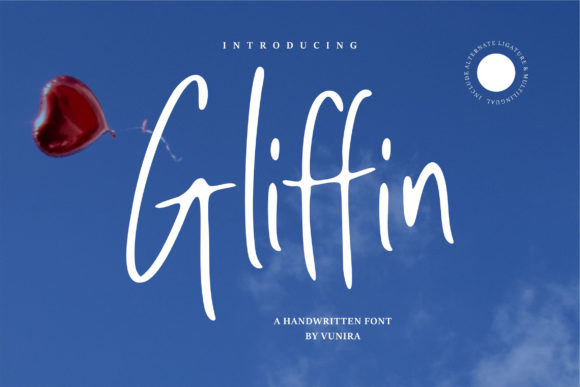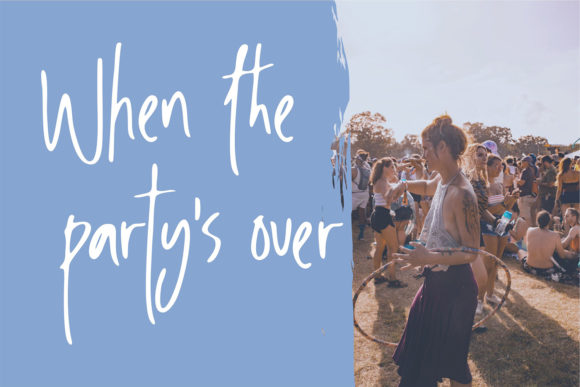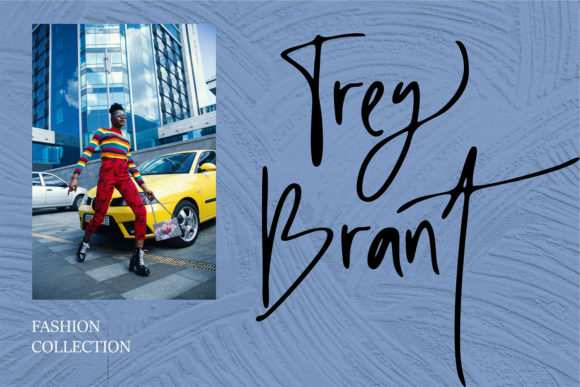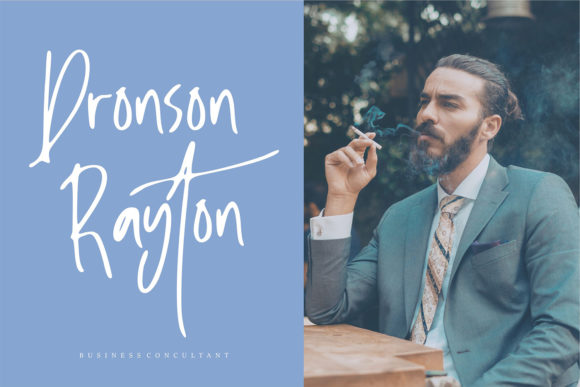
About Gliffin Font
Introducing Gliffin, a fresh and unique script font that exudes a carefree attitude and a playful edge. With its quirky and casual feel, Gliffin is perfect for adding a touch of personality and charm to your designs. Whether you’re working on logos, invitations, wedding designs, social media posts, or any other creative project, Gliffin is here to elevate your work with its distinctive style.
One of the standout features of Gliffin is its wide selection of natural-looking ligatures. These ligatures add a sense of authenticity and fluidity to your typography, mimicking the way letters naturally flow together in handwriting. The ligatures seamlessly connect characters, creating a more organic and handcrafted look. With Gliffin, your text will have that extra touch of charm and character, setting it apart from ordinary script fonts.
Gliffin is highly versatile and adaptable, making it suitable for a wide range of design applications. Its playful and carefree nature brings a sense of fun and spontaneity to your designs, perfect for projects that require a lighthearted and energetic vibe. Whether you’re designing a logo for a creative agency, creating invitations for a whimsical event, or crafting social media posts that stand out from the crowd, Gliffin adds a unique and memorable touch.
When used in logos, Gliffin creates a memorable and distinctive brand identity. Its casual and playful nature can reflect a brand’s personality and values, while its clean and legible letterforms ensure readability and impact. Whether you’re designing a logo for a café, a fashion brand, or a children’s product, Gliffin adds that extra touch of character and style.
Invitations and wedding designs come alive with Gliffin’s carefree attitude. Its flowing strokes and expressive letterforms create an elegant and whimsical look that is perfect for capturing the joy and celebration of special occasions. Whether you’re designing wedding invitations, save-the-date cards, or event signage, Gliffin adds a touch of romance and personality that sets the tone for a memorable event.
Social media posts become more engaging and eye-catching with Gliffin. Its unique and playful style helps your content stand out in crowded feeds, grabbing attention and encouraging interaction. Whether you’re creating Instagram quotes, Facebook posts, or Pinterest graphics, Gliffin adds a touch of creativity and personality that resonates with your audience.
With Gliffin, the possibilities are endless. Its fresh and unique script, combined with its natural-looking ligatures, gives you the freedom to create designs that are as playful and carefree as your imagination allows. So, embrace the casual attitude and playful edge of Gliffin, and let it infuse your designs with a sense of fun, creativity, and distinctiveness.